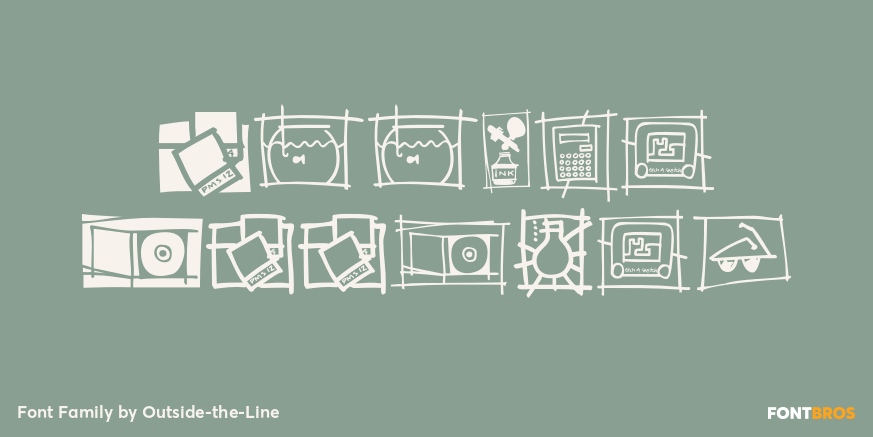
HomeFont BrosDingbatOffice Doodles Dingbat Office Doodles FacebookXPinterestWhatsApp 1 of 1 About Office Doodles Fun, little illustrations in line and reverse of what one finds in an office-or at least my office. See Food Doodles for more matching little drawings.  DOWNLOAD NOW People also explored Mountain Font Senopati Font Glitch Shapes Font Hopia Font Zabarjad Font Genclang Font Silience Font Judgement A Nawarty Font 281 0 TagsOffice Doodles Font Previous articleLindkvist OneNext articleCalling Code LEAVE A REPLY Cancel reply Comment: Please enter your comment! Name:* Please enter your name here Email:* You have entered an incorrect email address! Please enter your email address here Website: Save my name, email, and website in this browser for the next time I comment. Personal Use Free Stentiga Personal Use Free Read more about this font Lovetle Personal Use Free Read more about this font Mellow Personal Use Free Read more about this font Love Baby Personal Use Free Read more about this font BLOG How to Install and Use Fonts on Windows, macOS, and Web Projects How to Install and Use Fonts on Windows, macOS, and Web Projects Fonts are a crucial part of design and branding. Whether you’re designing a... How to Cut Any Font on Cricut: Convert a Font to SVG (Free) Free Fonts Risk: Why Free Fonts Can Be Dangerous for Designers Fonts That Capture the Spirit of New York City